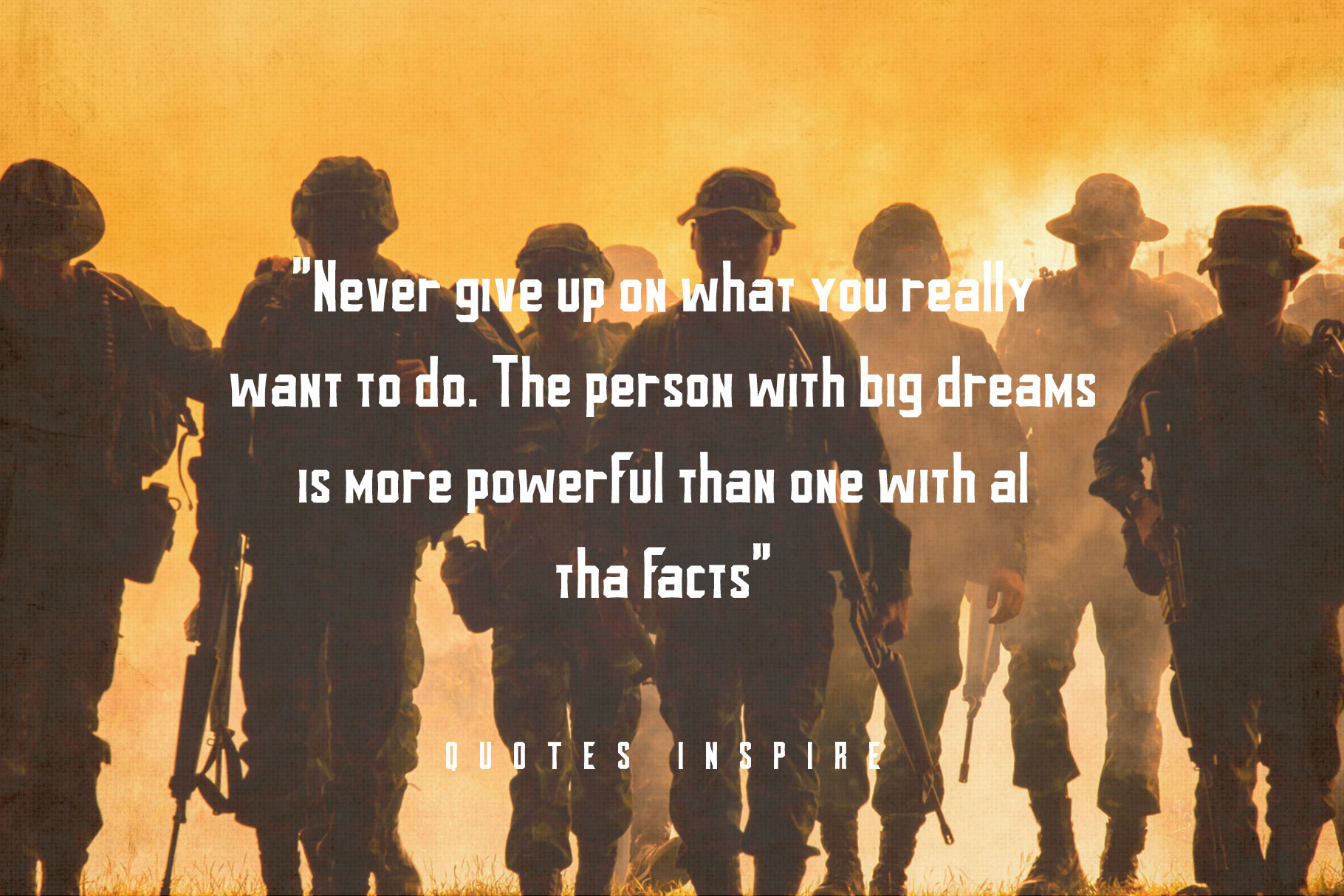
Bathalion sans serif font
Bathalion unique sans serif font. Bathalion it’s perfect  for logo, jersey, poster, clothing and much more! This font has a unique style and easy visual readability, so it’s perfect for headlines, automotive posters, logo or monograms designs.